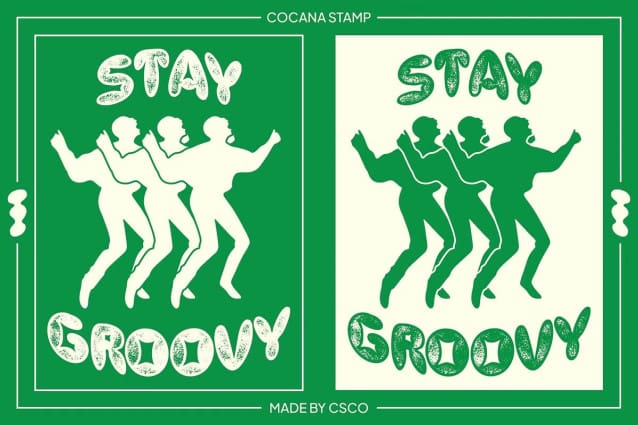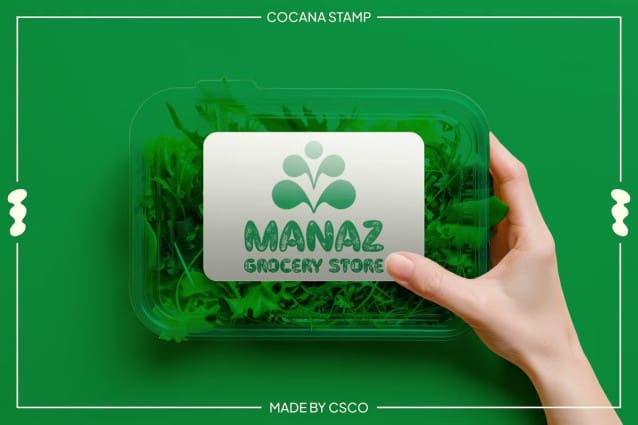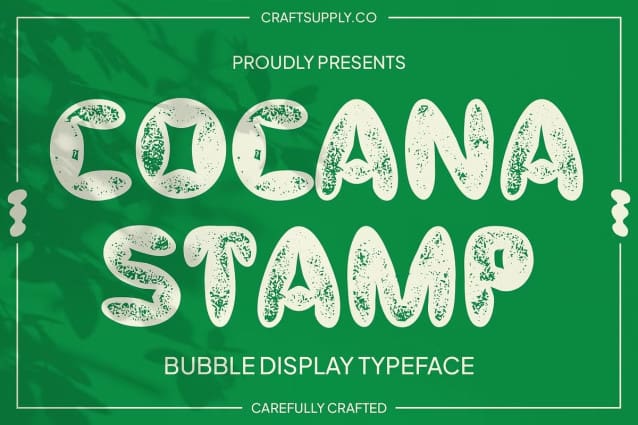
Cocana Stamp Font
Cocana Stamp Font is a display font featuring bubble-shaped, rounded letterforms that exude a cute and funky vibe. Its soft, playful design creates an inviting and joyful atmosphere, making it perfect for projects that seek to convey lightheartedness and creativity. The rounded forms are both approachable and engaging, ensuring your design captures attention with a friendly tone.
Unique Vintage Touch with Stamp Effect The stamp effect adds a vintage and distinctive touch to Cocana Stamp, giving it a textured and nostalgic feel. This effect introduces a sense of character and uniqueness, making the font stand out with a subtle, retro flair. The combination of bubble shapes with the stamp effect creates a harmonious balance between modern playfulness and classic charm.
Ideal for Creative and Lighthearted Projects Cocana Stamp is the ideal choice for designs that need to highlight cheerfulness and creativity. Whether you’re creating event posters, branding for children’s products, or any project that seeks to emphasize a fun and lively impression, this font delivers a memorable and engaging visual experience. Its combination of playfulness and vintage appeal makes it a versatile option for adding a touch of whimsy and originality to your designs.